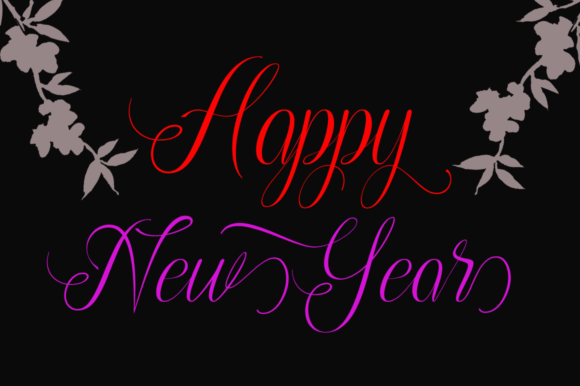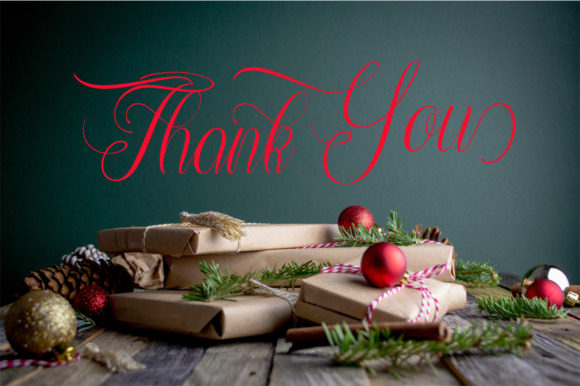
Melany Font
db-ku.com - Script & Handwritten -- Melany is a cute, rounded and elegant handwritten font. Looks beautiful on a variety of designs that require a personalized style, such as wedding invitations, thank you cards, weddings, greeting cards, logos and so on. This font is PUA encoded which means you can access all the glyphs and sweeps easily!